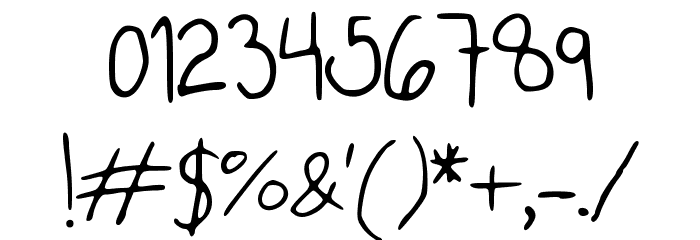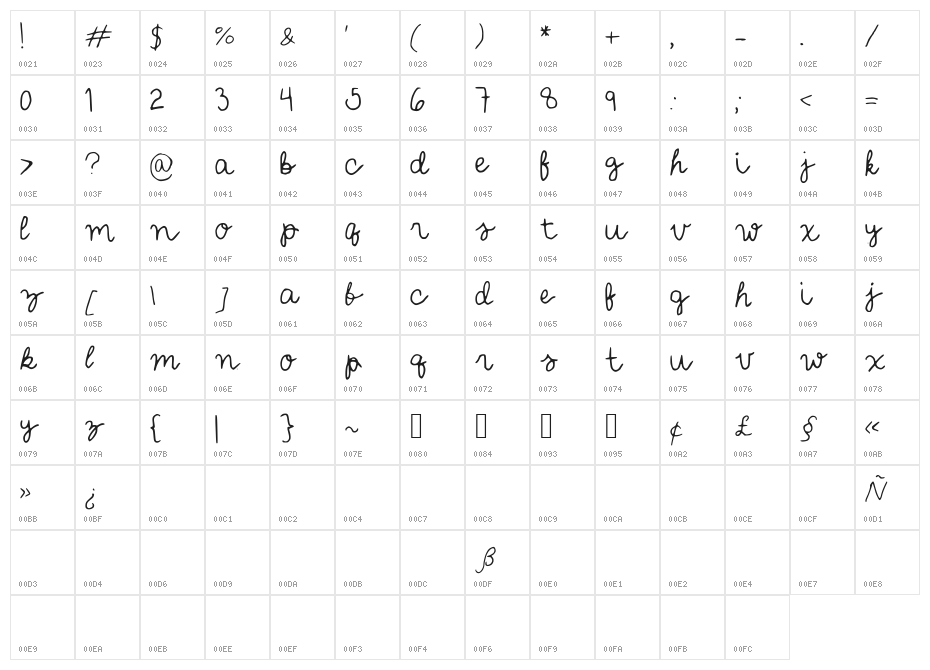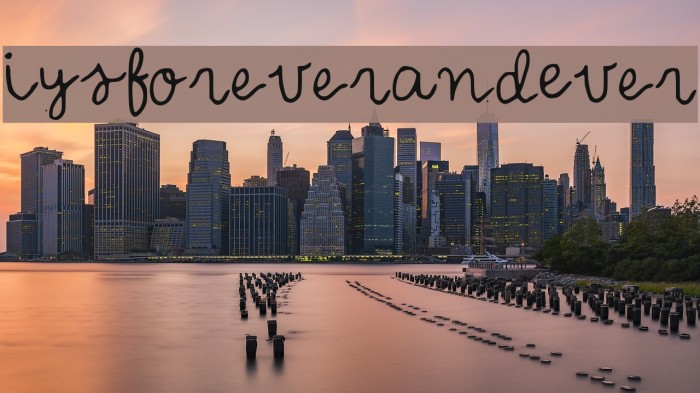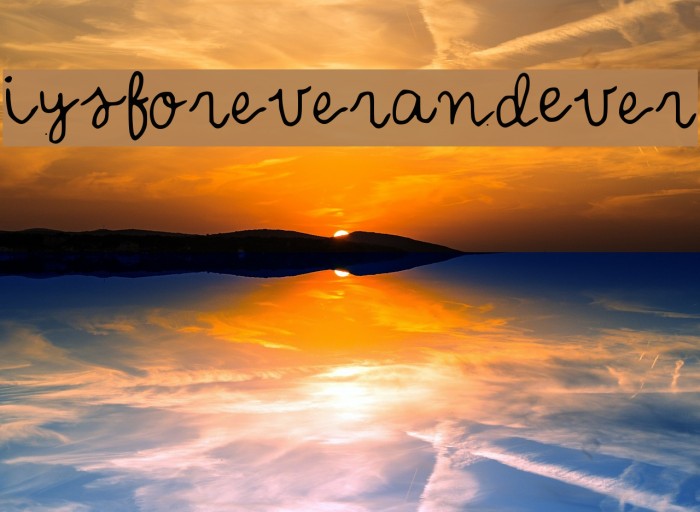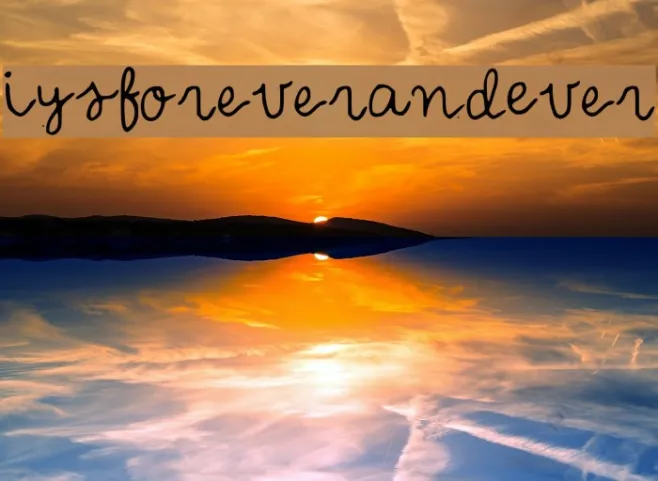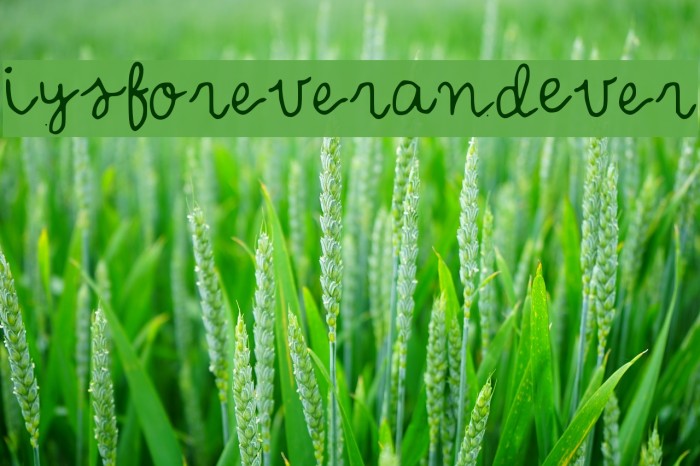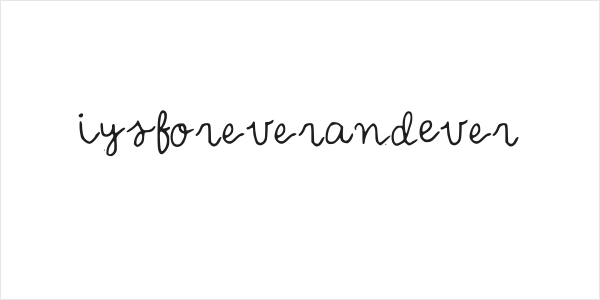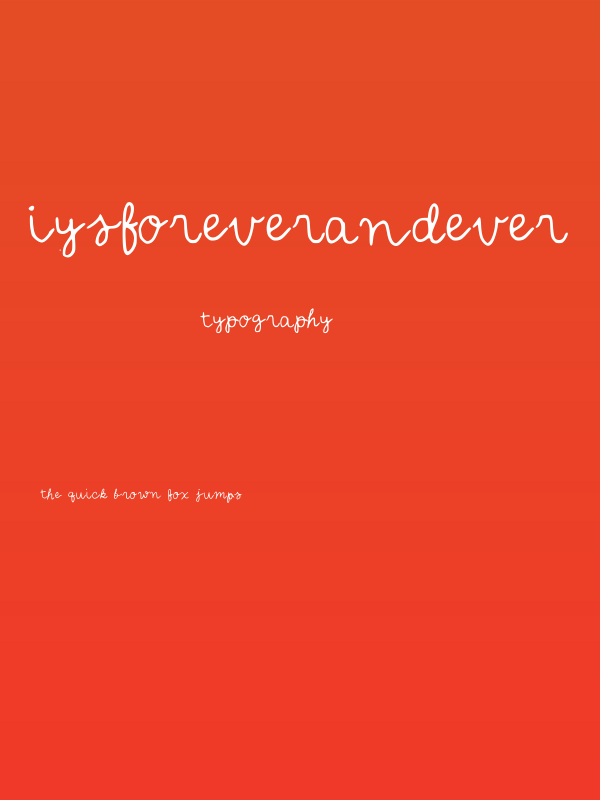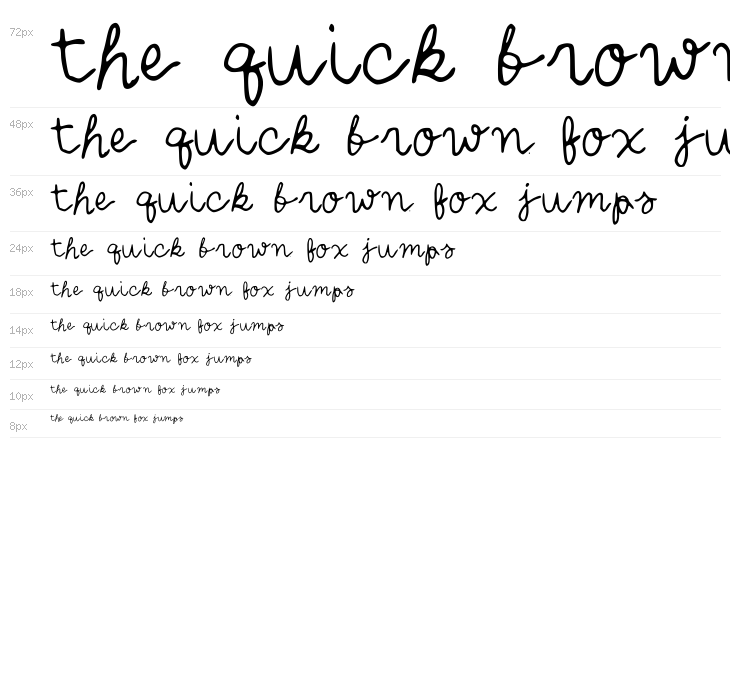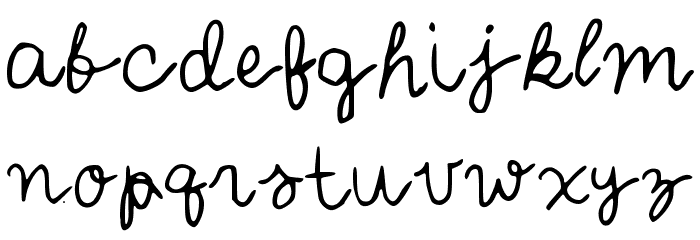
IYSForeverandEver Font
IYSForeverandEver Description
This font exudes a playful and casual handwritten style, characterized by its flowing, cursive-like strokes. The letters are connected in a manner that mimics natural handwriting, giving it a personal and informal touch. The characters are slightly slanted, adding to the dynamic and lively feel of the font. The strokes are consistent in width, providing a uniform appearance across all characters. The numerals and special characters maintain the same whimsical style, ensuring cohesion throughout the typeface. This font is perfect for projects that require a personal, friendly, and approachable aesthetic.
| Proposed Projects | Ideal for greeting cards, personal notes, invitations, and casual branding projects. |